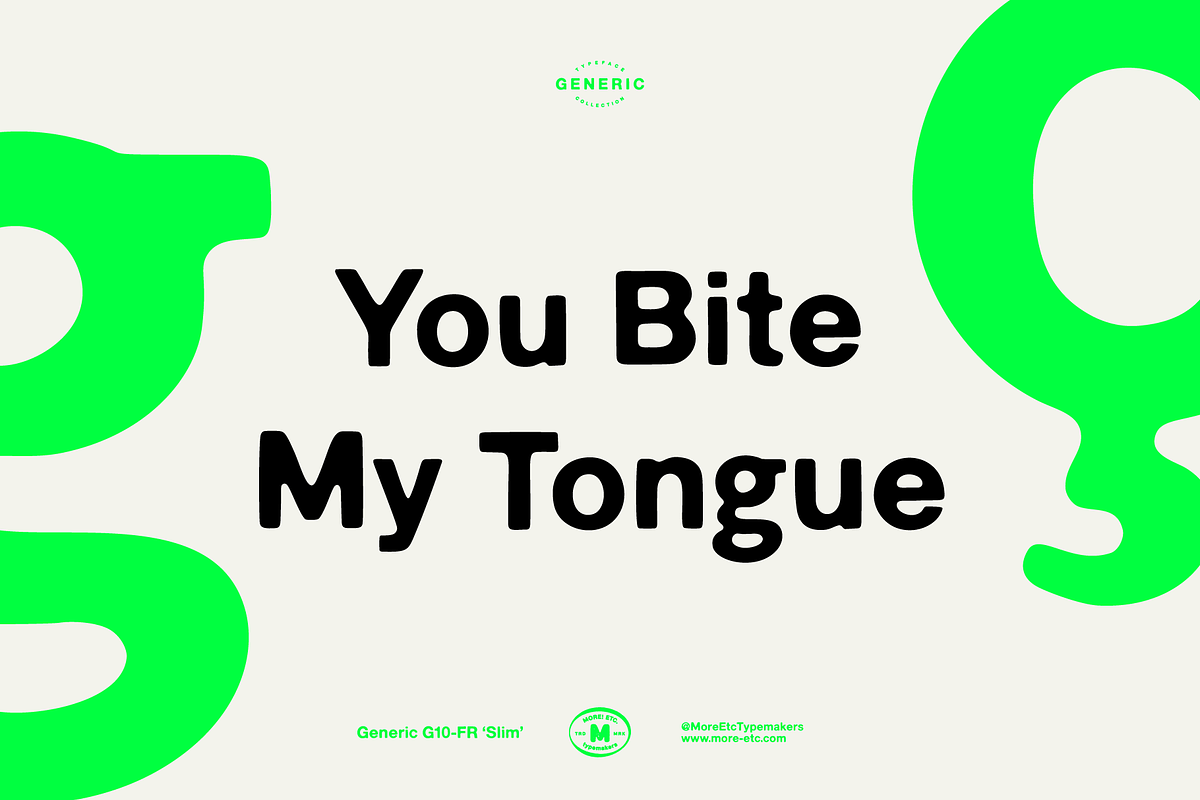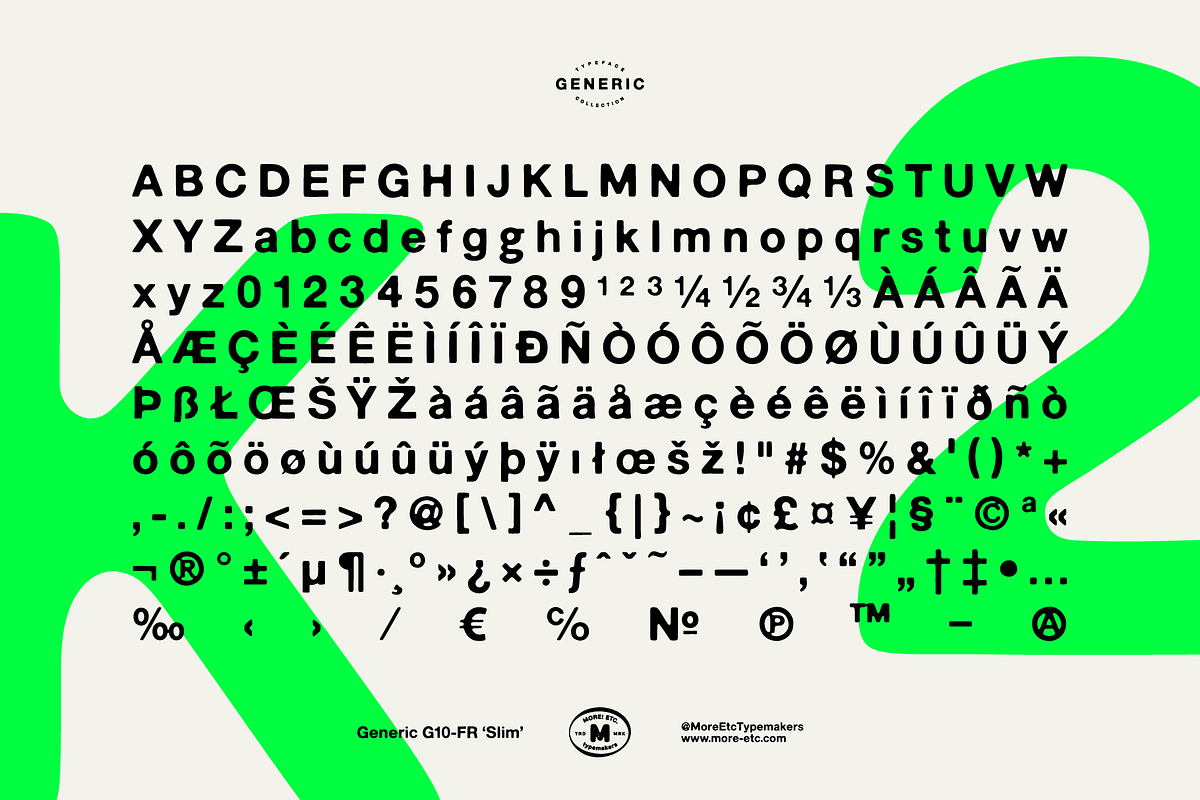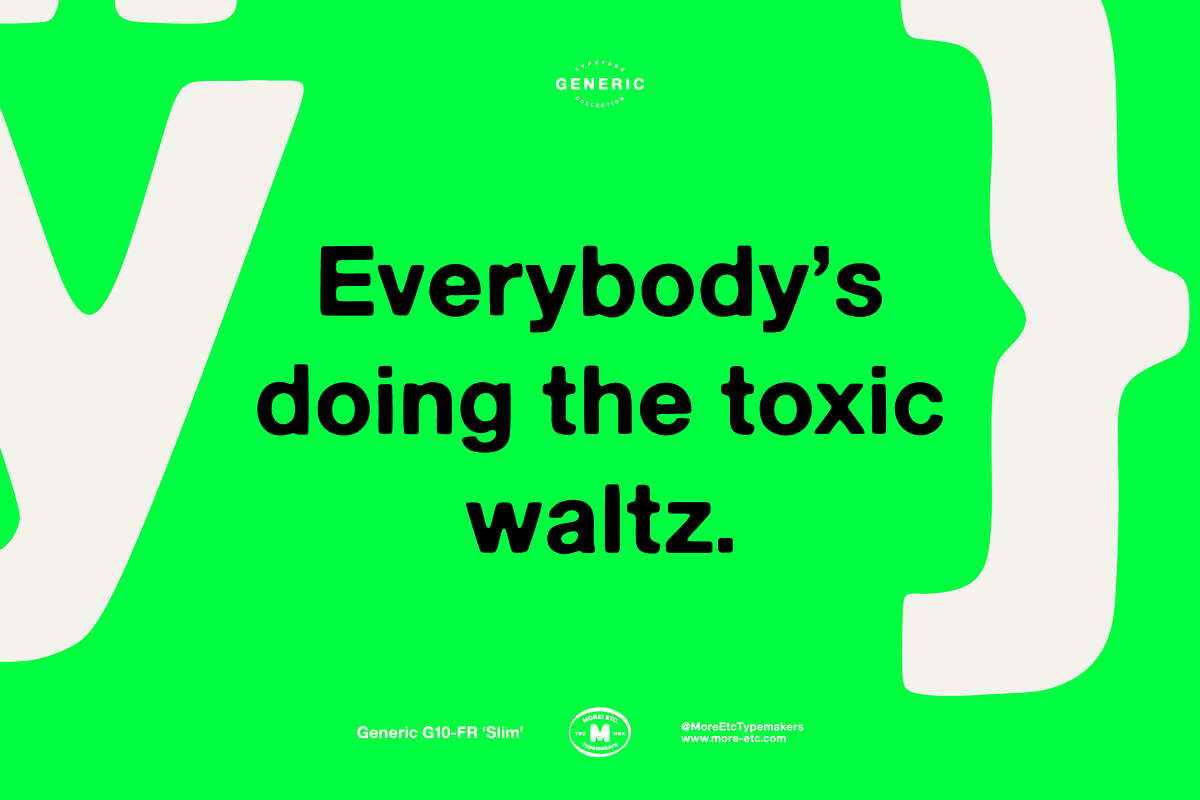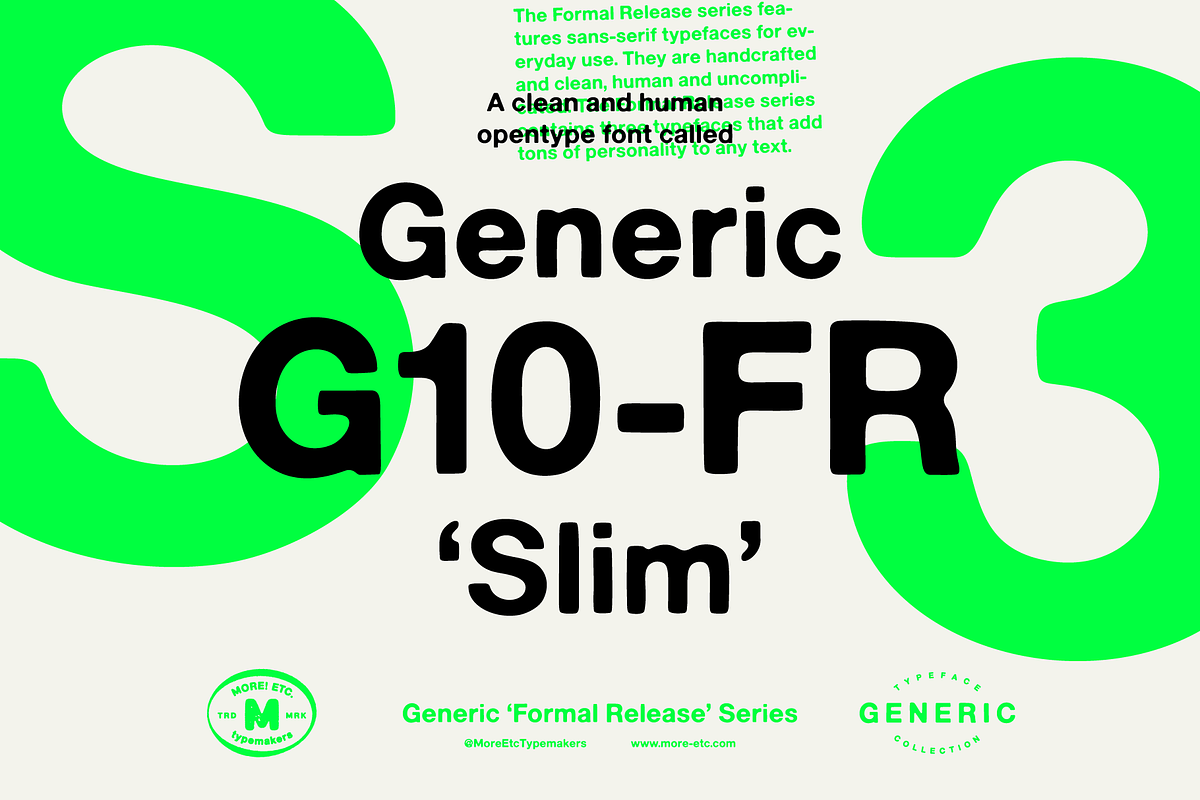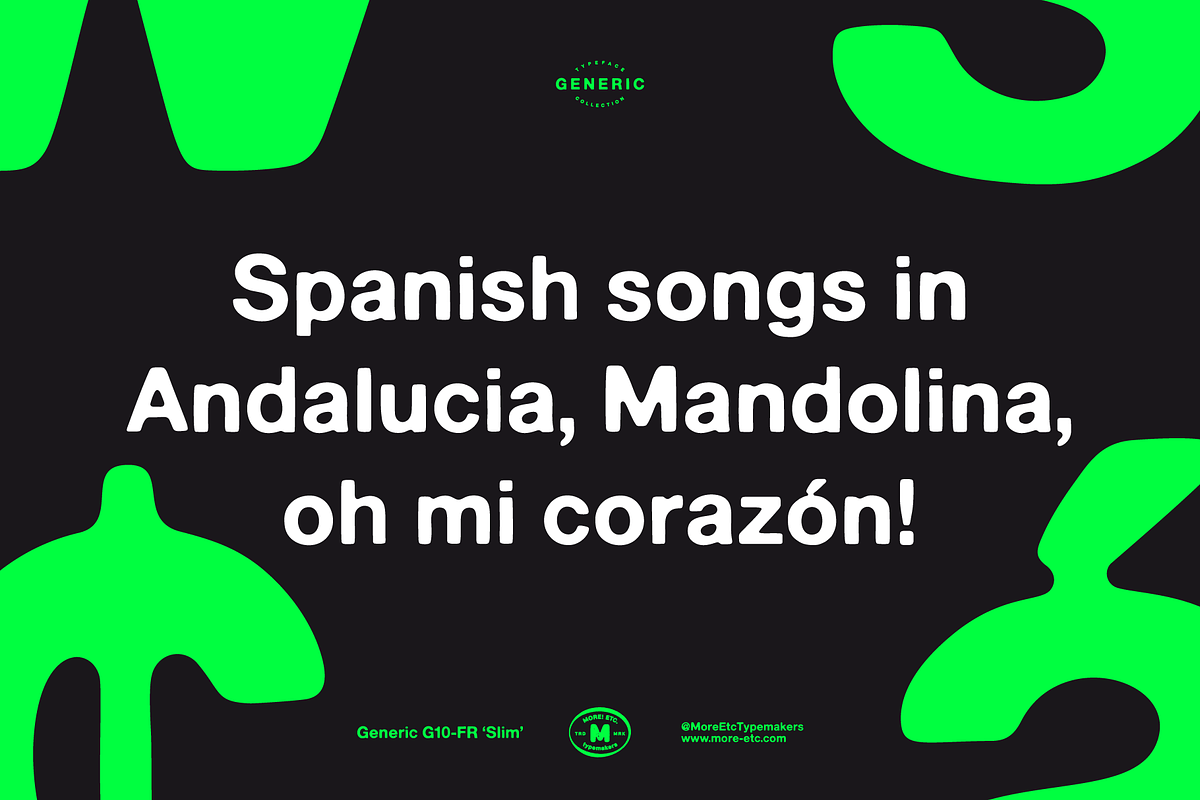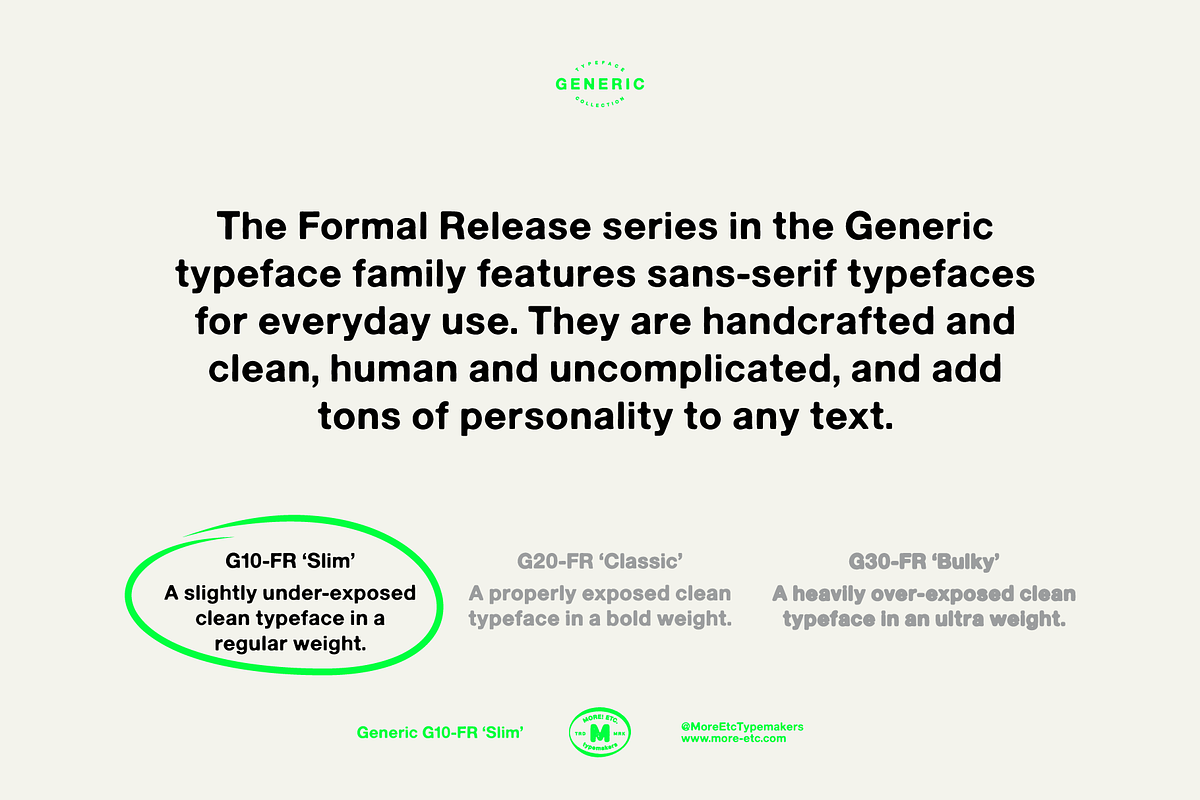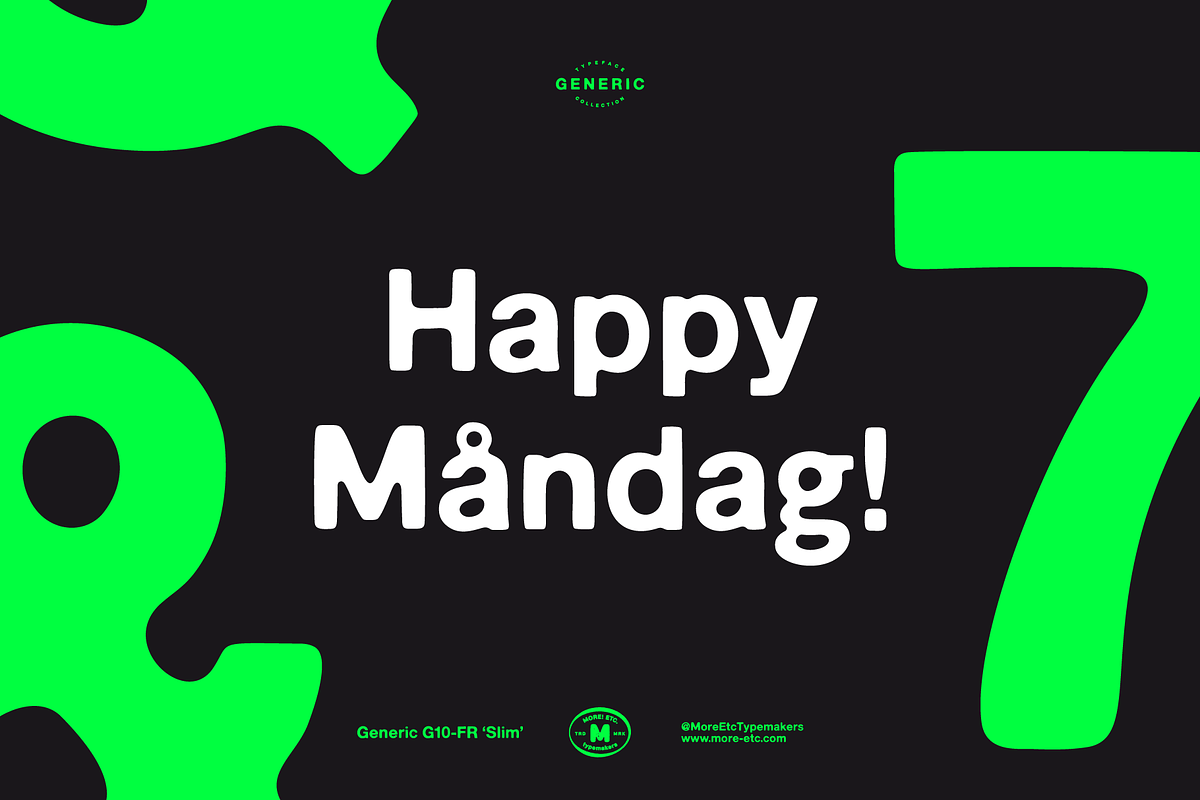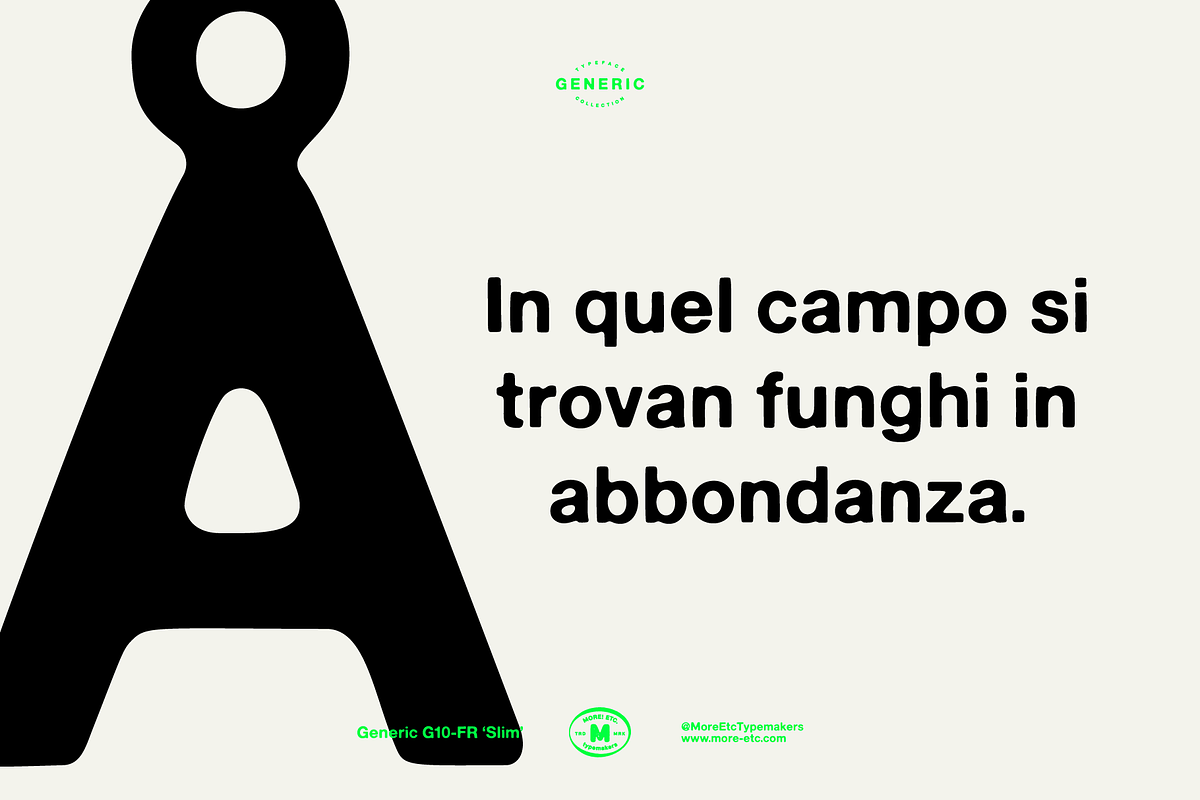
Generic G10-FR 'Slim'
Say hello to the Generic G10-FR 'Slim' typeface – a slightly under-exposed and clean typeface in a regular weight. A display font full of spirit, personality and distinction.
The typeface is handcrafted and clean, human and uncomplicated.
- Clean and human appeal with tons of personality
- Display font, but works well in longer text settings as well
- 228 glyphs
- 1 alternate character
The Generic Typeface Collection is a series of sans-serif typefaces inspired by the craftsmanship of graphic design, typesetting, and printing in the analogue era – before Adobe, Macintosh computers and desktop publishing – when dinosaurs ruled the earth. This is an attempt to incorporate spirit and personality into a set of typefaces without losing distinction. You might call it a homage to non-perfection. I call it human.
The Generic Typeface Collection consists of 11 fonts divided into four series. The three standard series – the Formal Release series, the Coarse Copy series, and the Rough Display series – all contain three fonts each. The Extra Splendor series contains a couple of shadow fonts for that little extra sparkle.